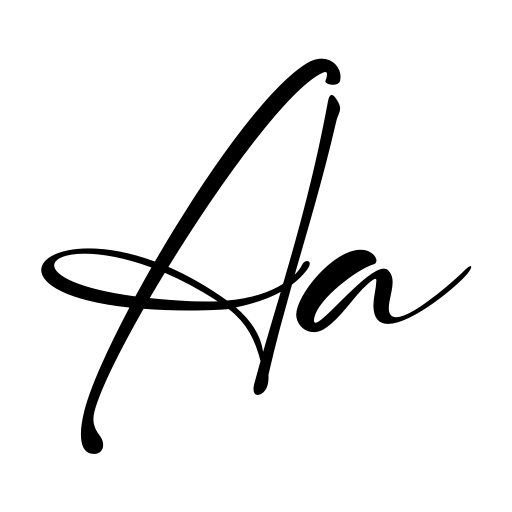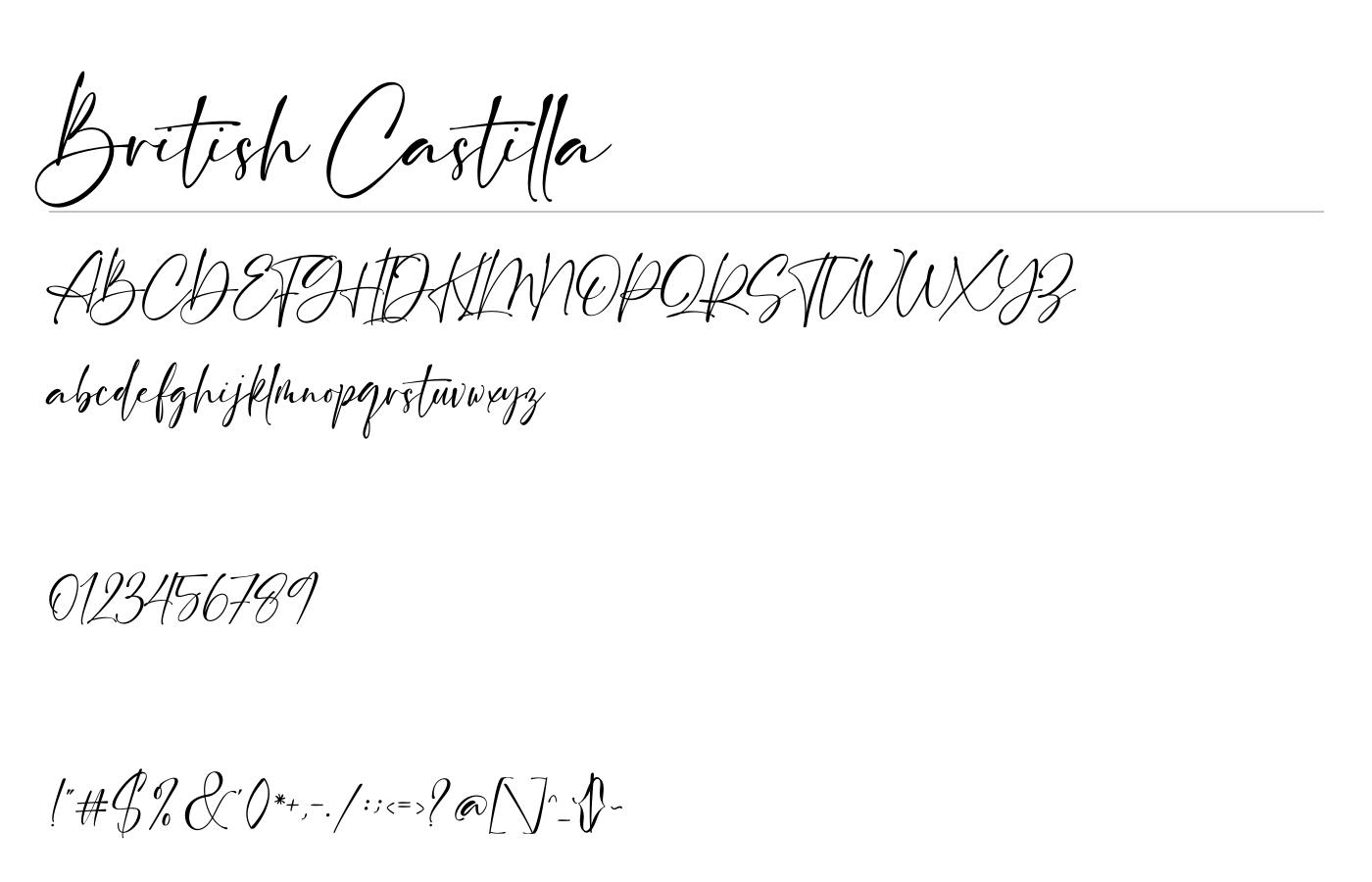
British Castilla is a delicate and elegant script font with a handwritten feel, characterized by its fine, flowing strokes and tall, narrow letterforms. Its light weight and graceful curves give it a sophisticated and artistic personality, making it ideal for luxury branding, invitations, and stylish editorial projects where a refined, personal touch is desired. This font works best in large sizes for headlines or logos, where its intricate details can stand out beautifully.
British Castilla Font
About British Castilla Font
| Font family | British Castilla Font |
| Designer | Riyadh Rahman |